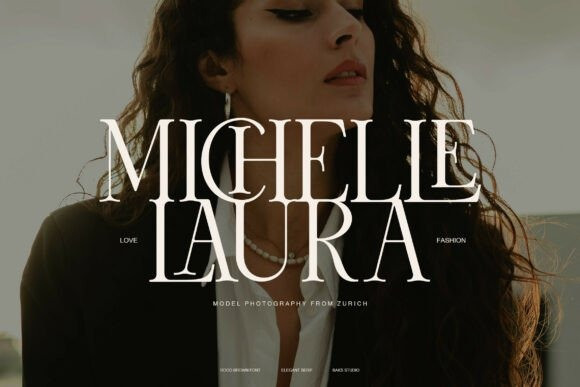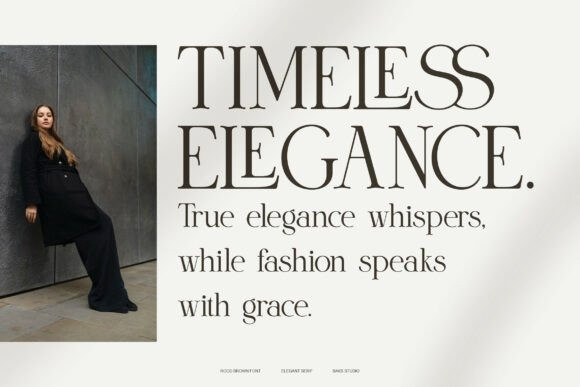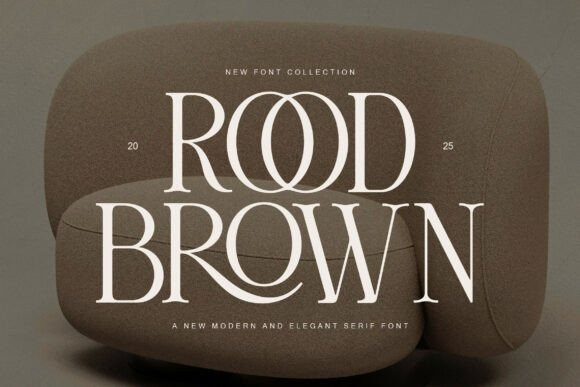
Rood Brown Font is a modern and elegant serif font that blends classic sophistication with contemporary style. Featuring refined curves, high contrast strokes, and timeless letterforms, this typeface brings a touch of luxury to any design.
Perfectly suited for branding, editorial design, packaging, logos, invitations, and high end product displays, Rood Brown elevates your creative projects with an aura of elegance and professionalism. Whether you aim for a minimalist modern look or a classic retro inspired style, this font adapts seamlessly.
With its bold yet graceful presence, Rood Brown is the ideal choice for designers who value both style and versatility.